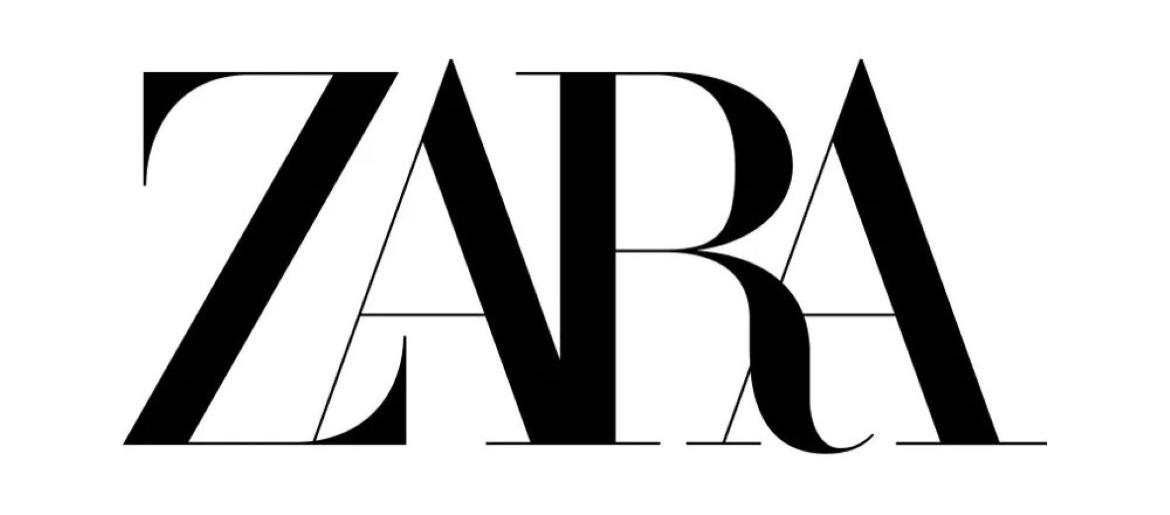
Zara Font plays a vital role in shaping the brand’s sleek and sophisticated image. The Zara logo font appears on store signage, packaging, advertisements, and digital platforms worldwide, making it one of the most recognizable typefaces in the fashion retail industry.
The Zara logo font is based on a customized serif typeface with refined and elongated letterforms. Its elegant style reflects modern luxury while maintaining minimalism, aligning with Zara’s identity as a fast-fashion brand that balances affordability with trend-driven design. The Zara logo font ensures consistency and reinforces the brand’s high-end yet accessible aesthetic.
By using a minimal and modern font, Zara communicates sophistication and style while remaining approachable to a global audience.
Zara is a Spanish fashion retailer and one of the world’s largest clothing brands, founded in 1974. Known for its fast-fashion model, Zara quickly brings runway-inspired designs to stores, offering stylish and affordable clothing, accessories, and footwear to millions of customers across the globe.